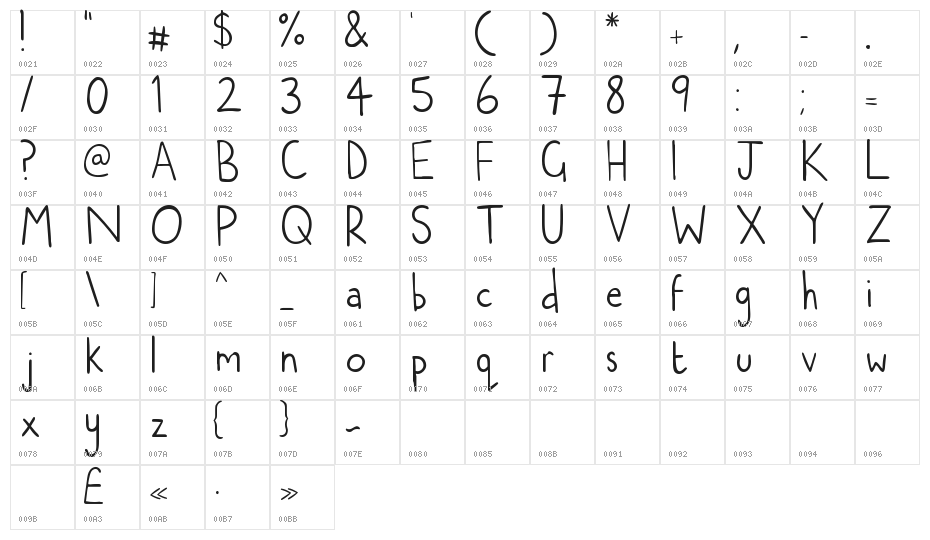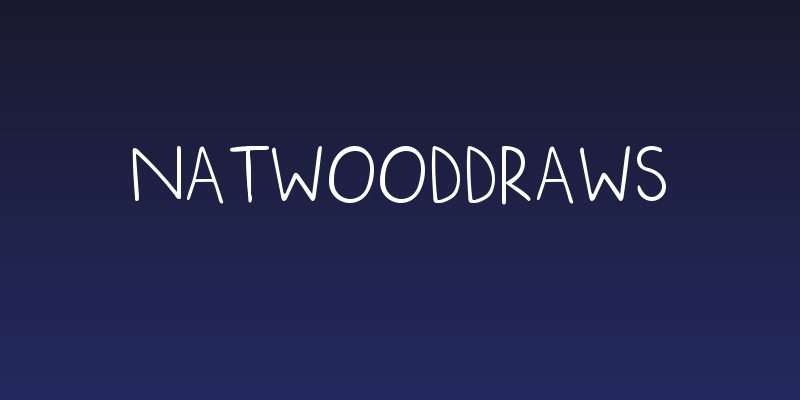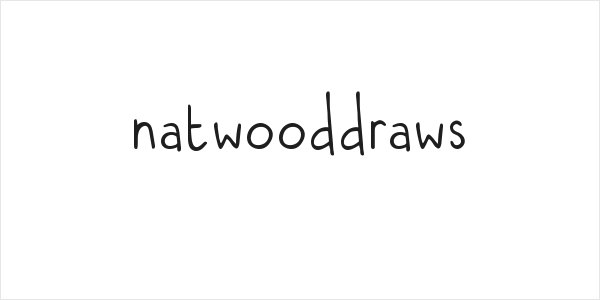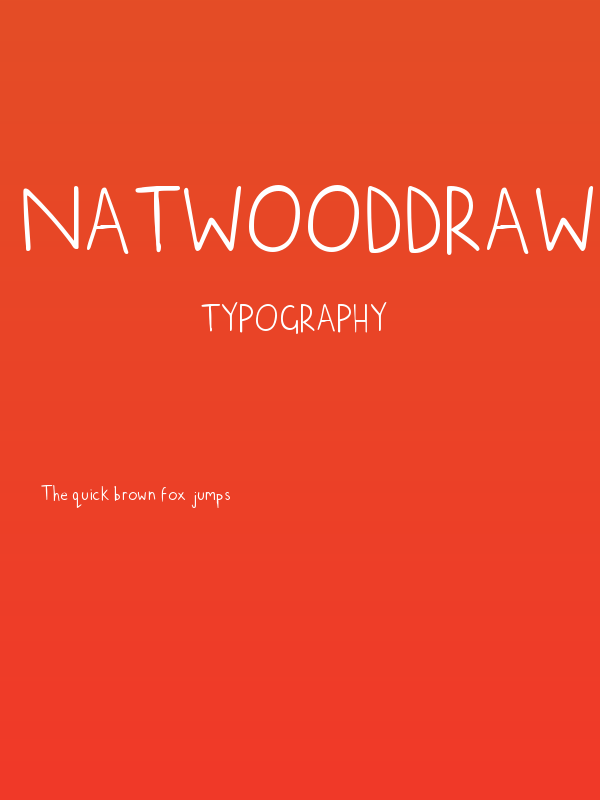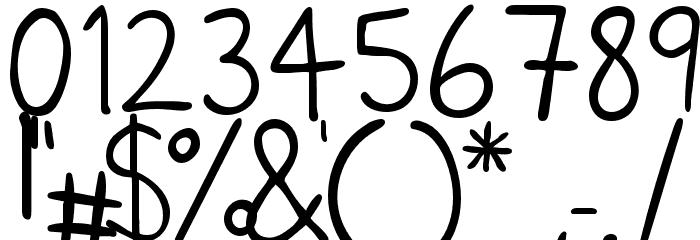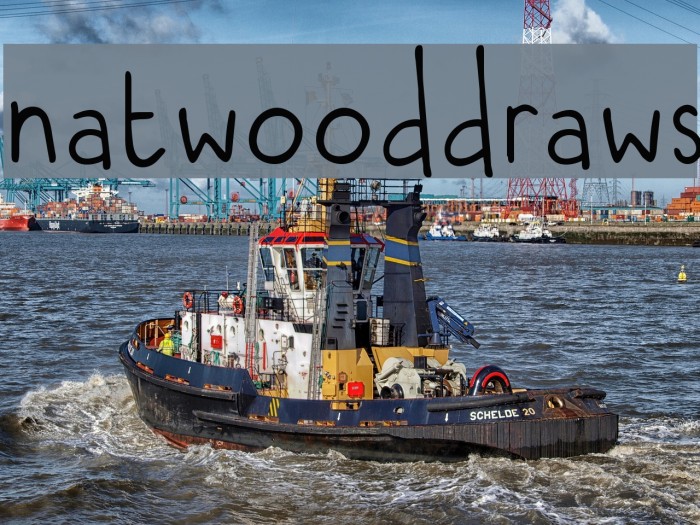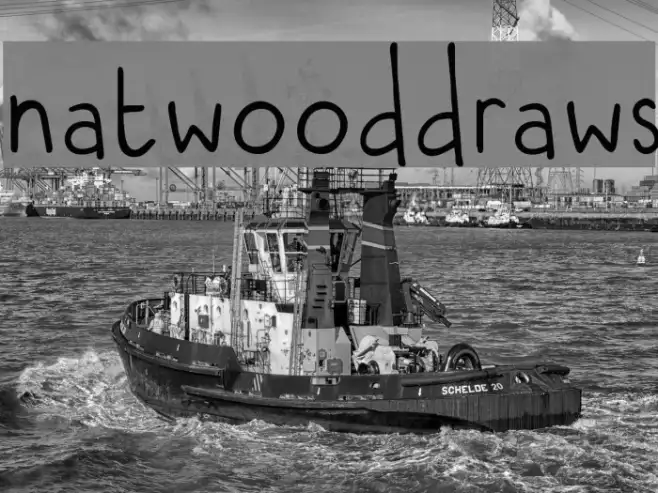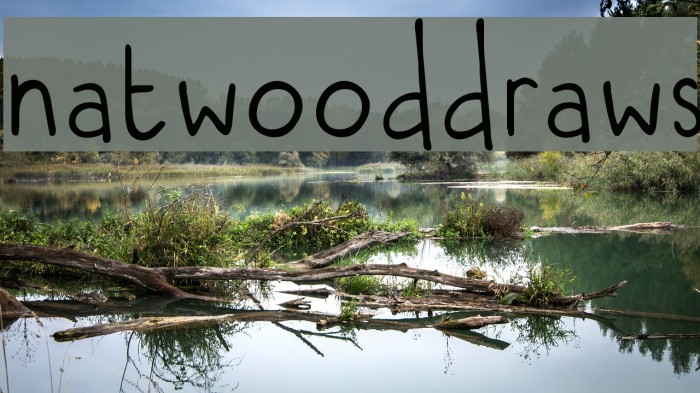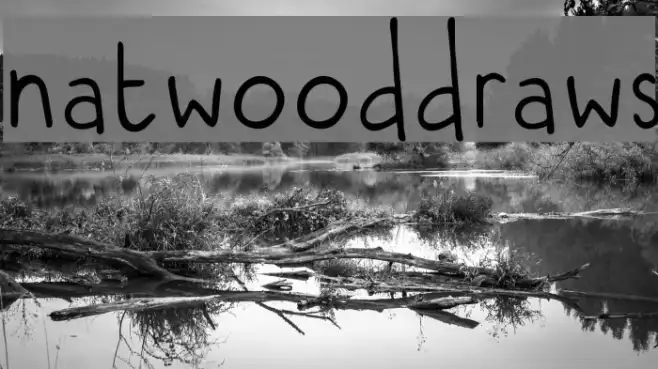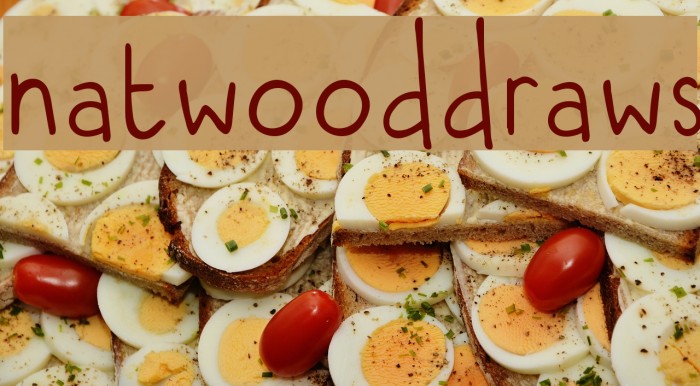
natwooddraws Font
This font features a playful and casual handwritten style, characterized by its rounded edges and slightly irregular letterforms. The uppercase and lowercase letters maintain a consistent flow, giving it an approachable and friendly appearance. The numerals and special characters are designed with the same whimsical touch, making them blend seamlessly with the alphabet. The overall design is simple yet expressive, suitable for projects that require a personal and informal touch.
| Proposed Projects | Ideal for children's books, greeting cards, personal blogs, and informal branding projects. |